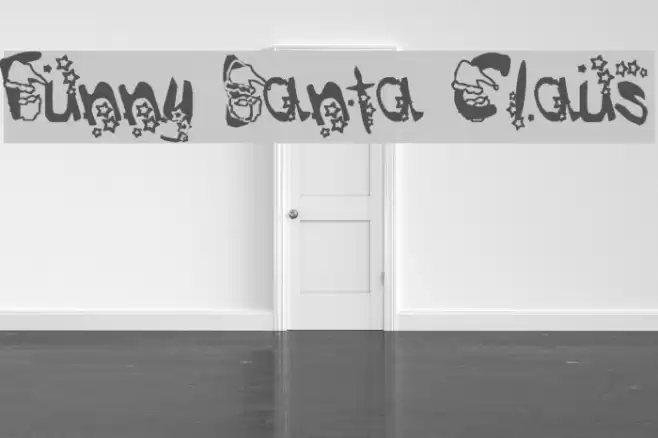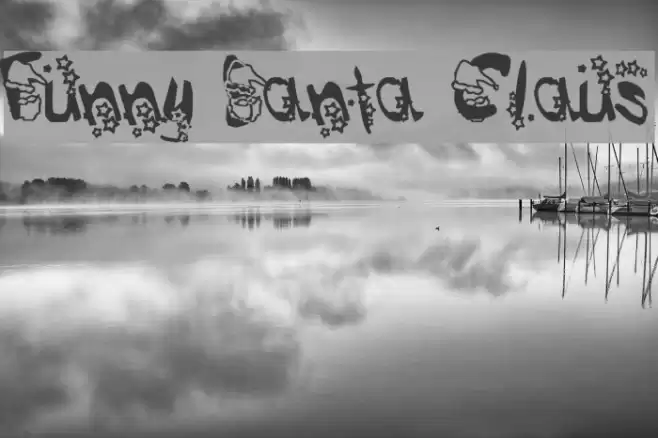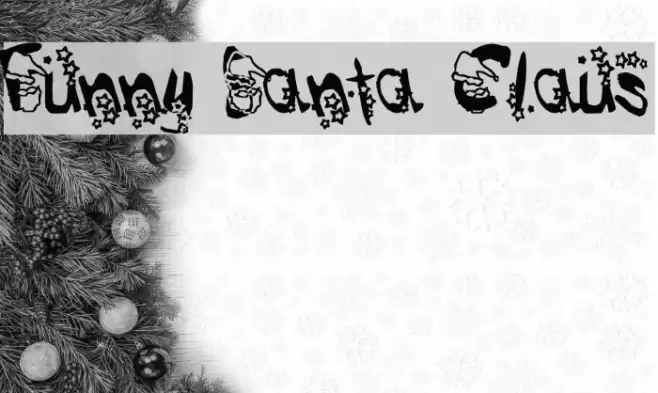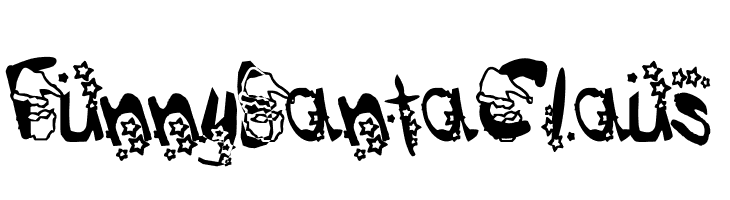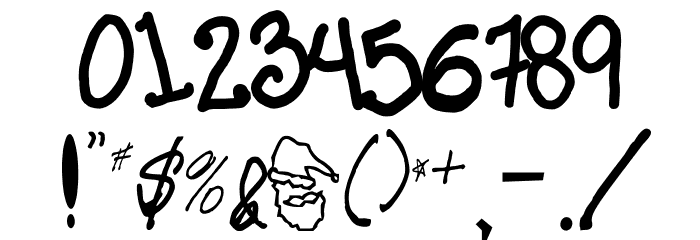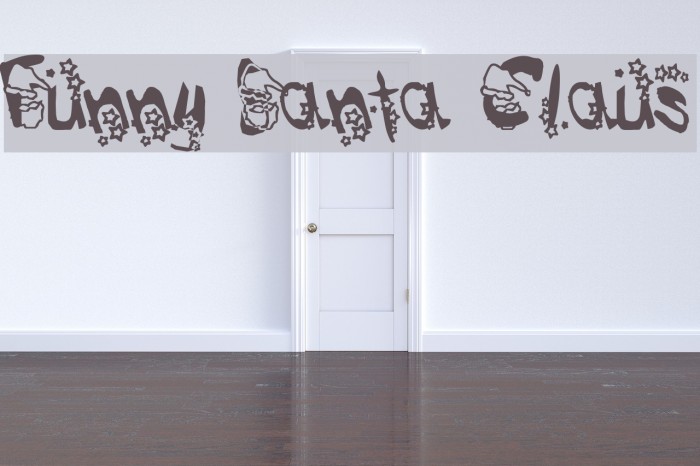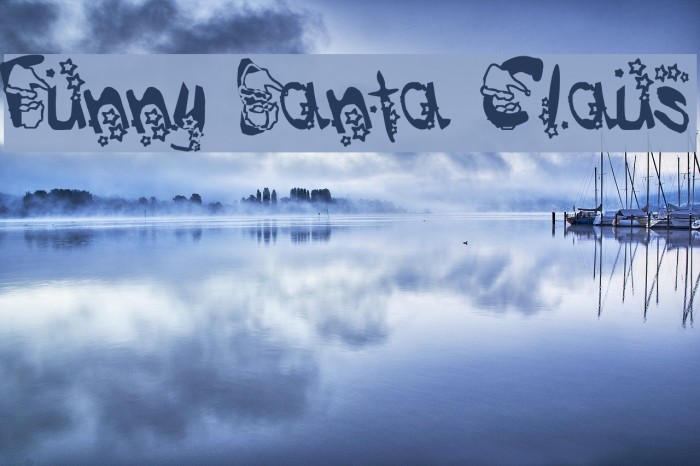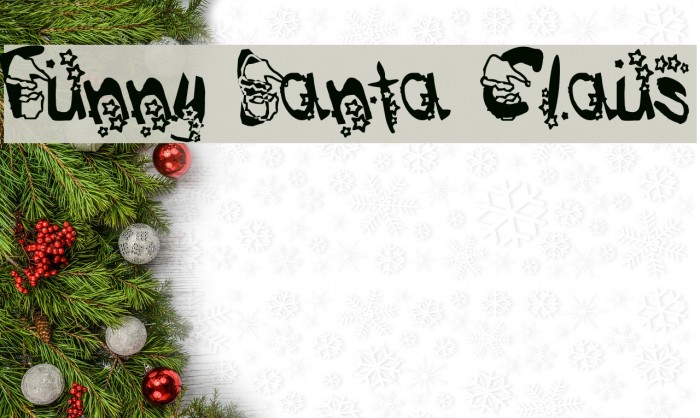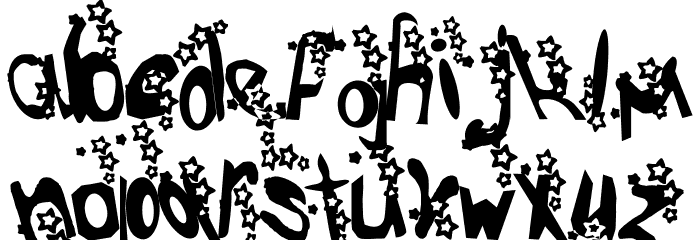
Funny Santa Claus Font
Funny Santa Claus Description
This playful and whimsical font features a unique design where each character is adorned with a Santa Claus motif, creating a festive and humorous appearance. The uppercase letters are bold and dynamic, with Santa's face integrated into the design, adding a cheerful holiday spirit. The lowercase letters are embellished with stars, enhancing the playful nature of the font. The numbers maintain a consistent style, ensuring readability while retaining the festive theme. Special characters include Santa-themed symbols, adding to the overall charm. This font is perfect for holiday-themed projects, bringing a touch of joy and humor to any design.
A whimsical, Santa-themed font perfect for festive designs from Uncategorized fonts.